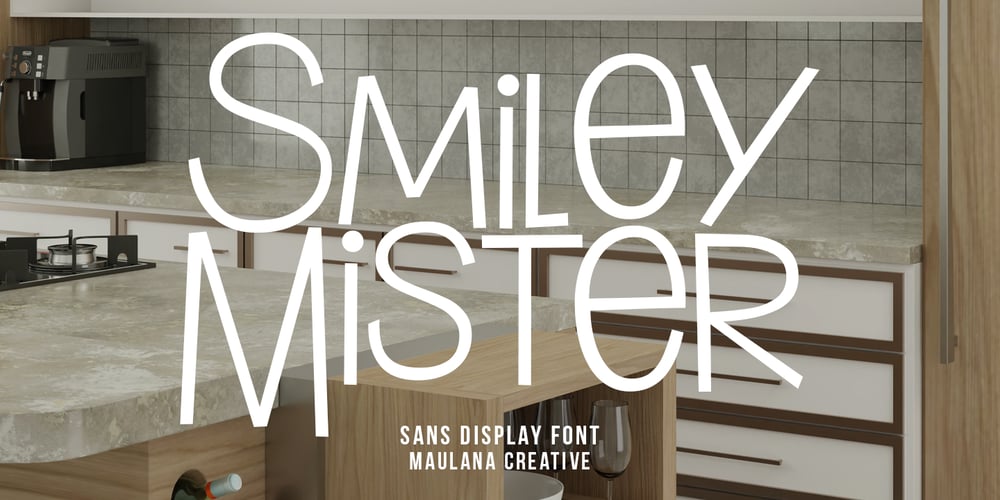
MC Mister Smiley Font Family was designed by Gilang Maulana and published by Maulana Creative. MC Mister Smiley contains 1 styles and family package options. Mister Smiley is a quirky bouncy handwritten font. With sharp edges stroke, fun character with a bit of ligatures and alternates. To give you an extra creative work. Mister Smiley font support multilingual more than 100+ language. This font is good for logo design, Social media, Movie Titles, Books Titles, a short text even a long text letter and good for your secondary text font with sans or serif. Make a stunning work with Mister Smiley font. Cheers,Maulana Creative